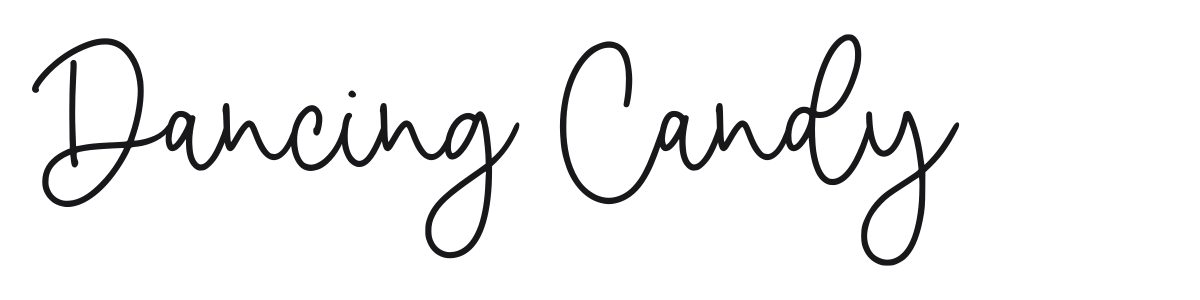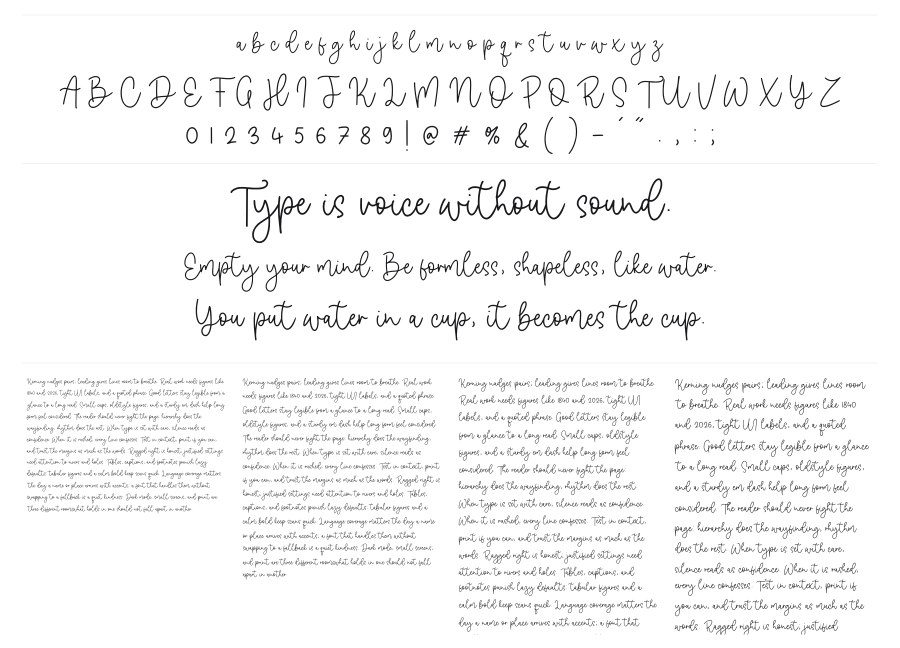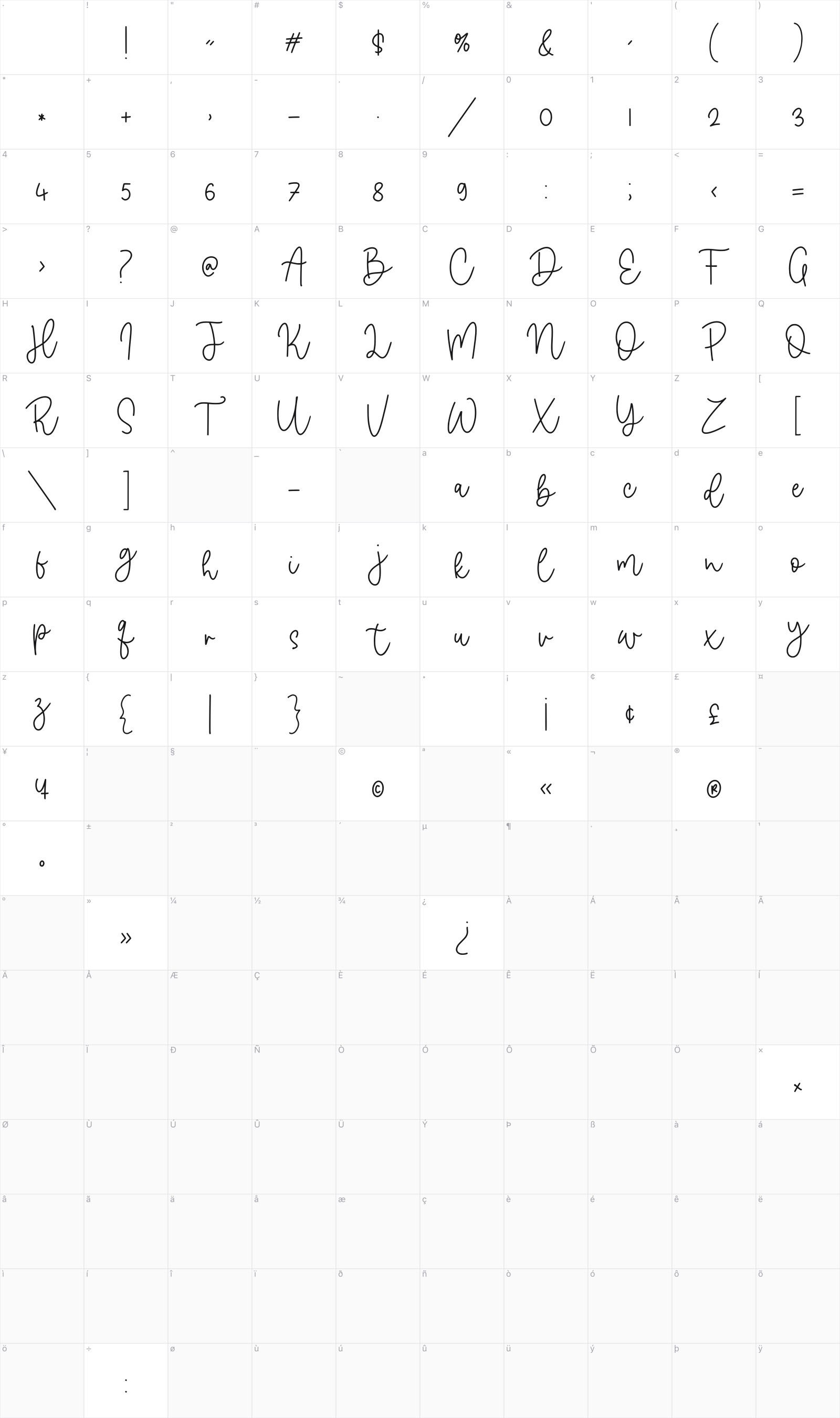
Dancing Candy
Dancing Candy is a flowing casual script with a light, bouncy energy and thin connected strokes. The looping ascenders and lively baseline rhythm give it a genuine hand-lettered feel without feeling messy. It works well for logotypes, packaging, and any project that needs a friendly, contemporary handwritten touch.